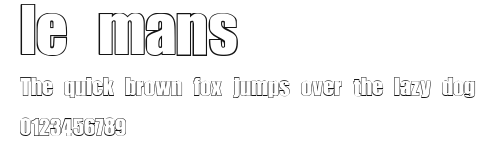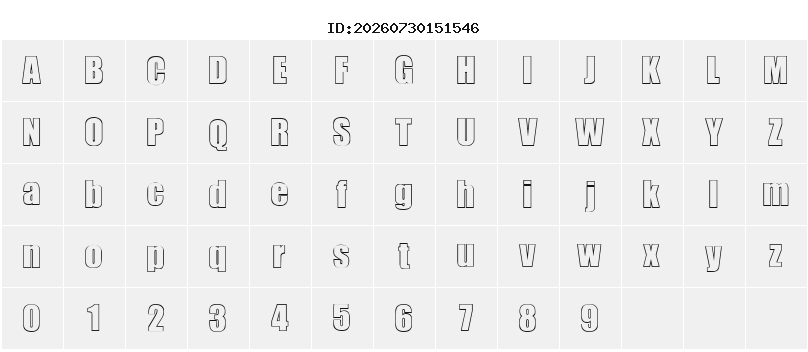
le mans Preview
• Font Name: le mans
• Full Font Name: le mans
• PostScript Name: lemans
• Character Count: 92
About le mans.ttf
le mans.ttf is a modern, elegant sans-serif font designed for ultimate readability and visual harmony. Perfect for branding, headlines, web design, and print materials.